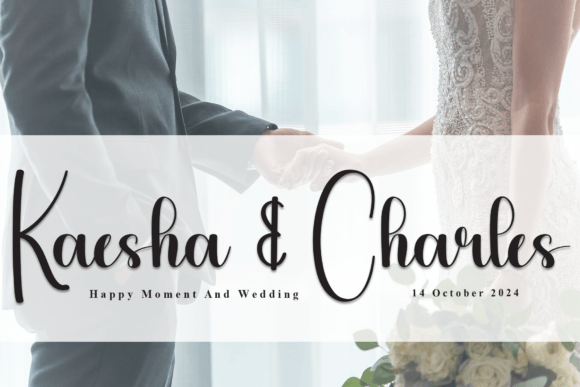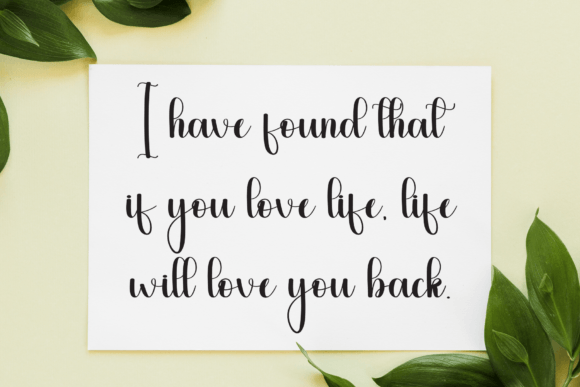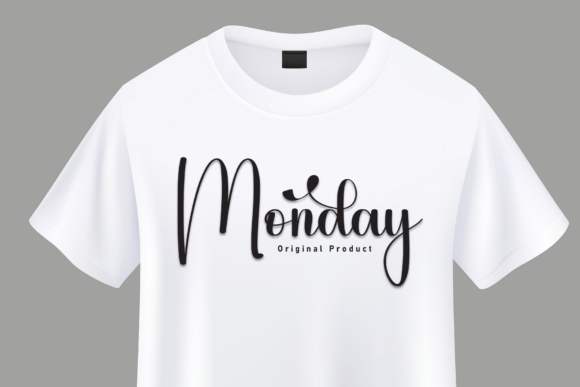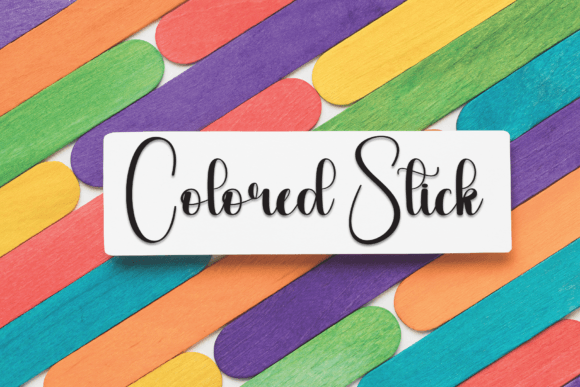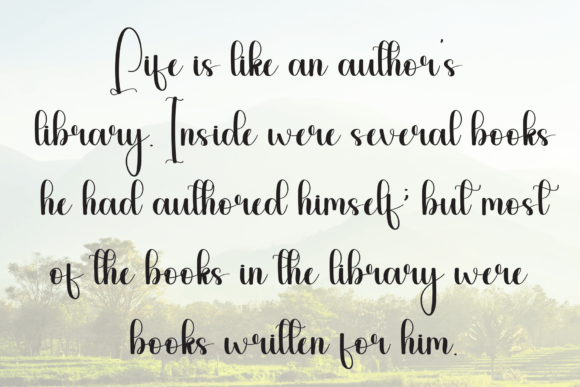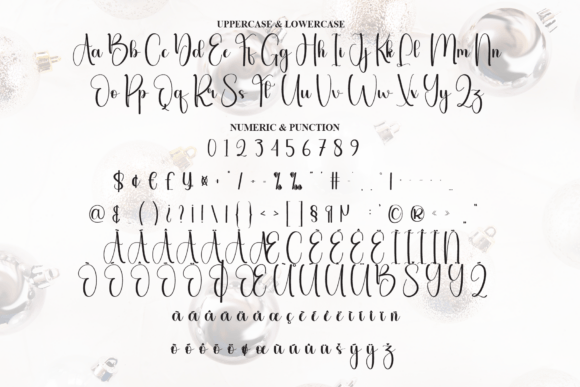
Have you ever stared at a blank canvas, searching for the perfect font to bring your creative vision to life? We’ve all been there – the cursor blinks, and our minds go blank. But what if we told you that the key to unlocking your design potential lies in a single, elegant font? Meet Baubles Font, a playful and stylish script font that’s as versatile as it is beautiful.
With its smooth, flowing letters, Baubles Font is perfect for designers who crave a touch of fun and elegance in their projects. Whether you’re crafting invitations, cards, or logos, this font adds a sophisticated charm that’s sure to captivate your audience. As a valuable addition to any designer’s toolkit, Baubles Font is a must-have for anyone looking to elevate their creative game.
Baubles Font Key Features
- Font Family: Baubles Font comes in a single font family with a variety of styles, including regular, italic, bold, and bold italic.
- Character Count: The font contains over 1000 glyphs, including a wide range of characters, symbols, and ligatures.
- Unique Characteristics: The font features a unique, hand-drawn design with intricate details and ornaments, making it perfect for creating visually striking designs.
Baubles Font Review
When I first stumbled upon the Baubles font, I was immediately drawn in by its unique and playful charm. ✨ The font’s whimsical feel is perfect for adding a touch of personality to children’s books, greeting cards, or any project that requires a carefree vibe.
Here are some of the things I love about the Baubles font:
- ✨ Its hand-drawn feel gives it a sense of character and uniqueness.
- ✨ The font is highly legible, making it easy to read even in smaller sizes.
- ✨ It’s perfect for creating eye-catching headings and titles.
- ⚠️ The font may not be suitable for formal or professional projects, as its playful nature may come across as unprofessional.
- ⚠️ The font may not be as versatile as some other fonts, as its whimsical feel may limit its use in more serious or formal contexts.
Overall, I think the Baubles font is a great choice for designers who want to add a touch of personality to their projects. While it may have its limitations, the font’s unique charm and playfulness make it a great addition to any designer’s toolkit.
Tips: Use Baubles Font for eye-catching headings and titles. Experiment with different font sizes and colors to create visual interest.
Tips: Use Baubles Font for creative typography and graphic design projects. Combine with other design elements to create visually striking compositions.
Tips: Use Baubles Font for presentations and documents that require a touch of elegance and sophistication.
Baubles Font is ideal for:
- Graphic novels and comic books
- Editorial and magazine design
Alternative Fonts to Baubles Font for Designers
Great Vibes is a modern, elegant script font that is perfect for adding a touch of sophistication to designs. It’s ideal for use in invitations, quotes, and other creative projects where a unique, handwritten feel is desired.
Compared to Baubles Font, Great Vibes has a more refined and polished appearance, making it suitable for a wider range of design applications.
Amarante Font
Amarante is a beautiful, cursive script font that is reminiscent of traditional handwriting. It’s perfect for use in designs where a warm, inviting feel is desired, such as in wedding invitations, greeting cards, and other social media graphics.
Unlike Baubles Font, Amarante has a more relaxed and casual appearance, making it ideal for designs that require a friendly and approachable tone.
Carolyna Pro is a luxurious, elegant script font that is perfect for adding a touch of glamour to designs. It’s ideal for use in high-end branding, luxury packaging, and other design projects where a sophisticated, high-end feel is desired.